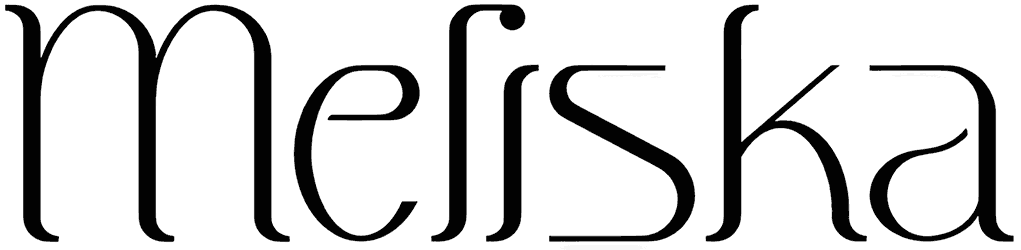
Meliska Font
If you want a high level of quality in your projects, have Meliska by your side. This logo font has narrow letters that use simple text effects and minimal twists to improve your creativity, and can be a practical addition to your writing.
So if you are designing a historical poster or want to decorate your book cover uniquely, use one of the two styles or a combination of them.